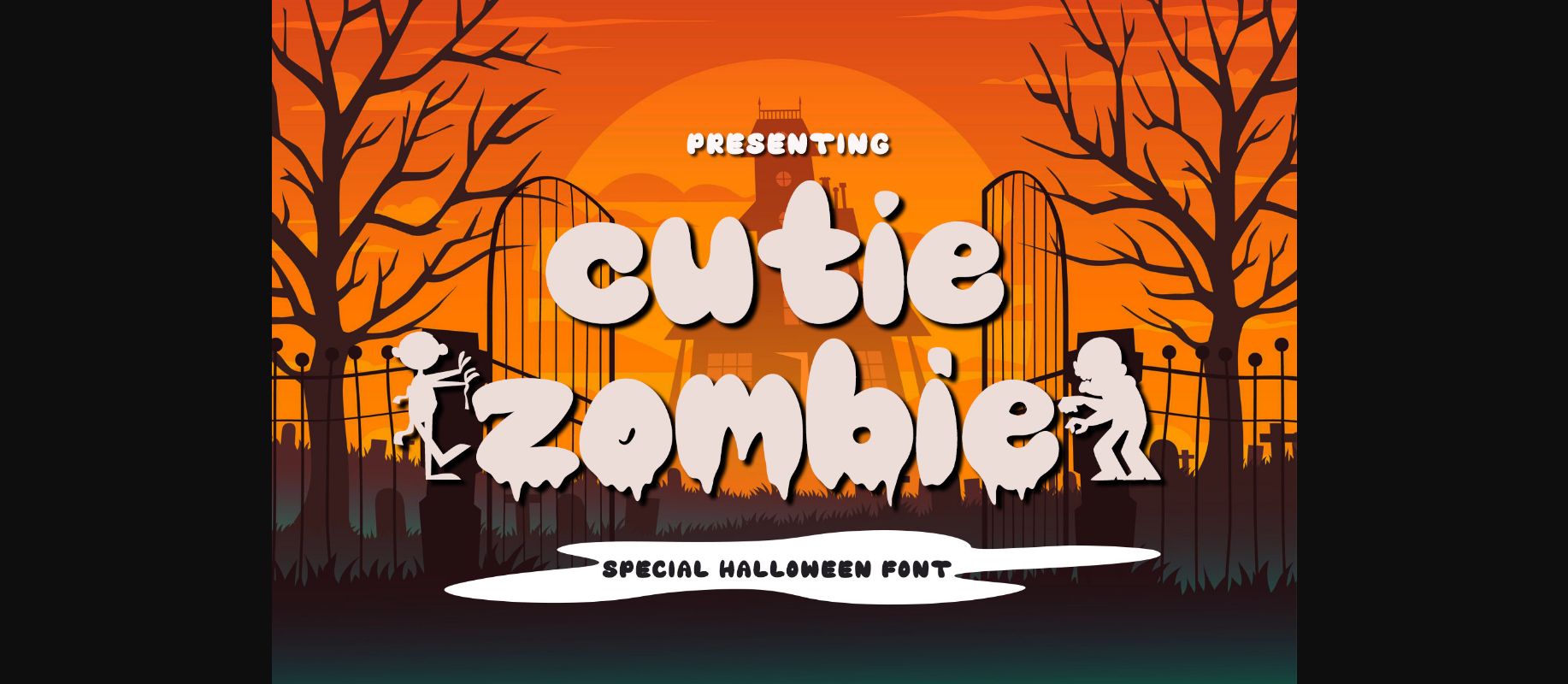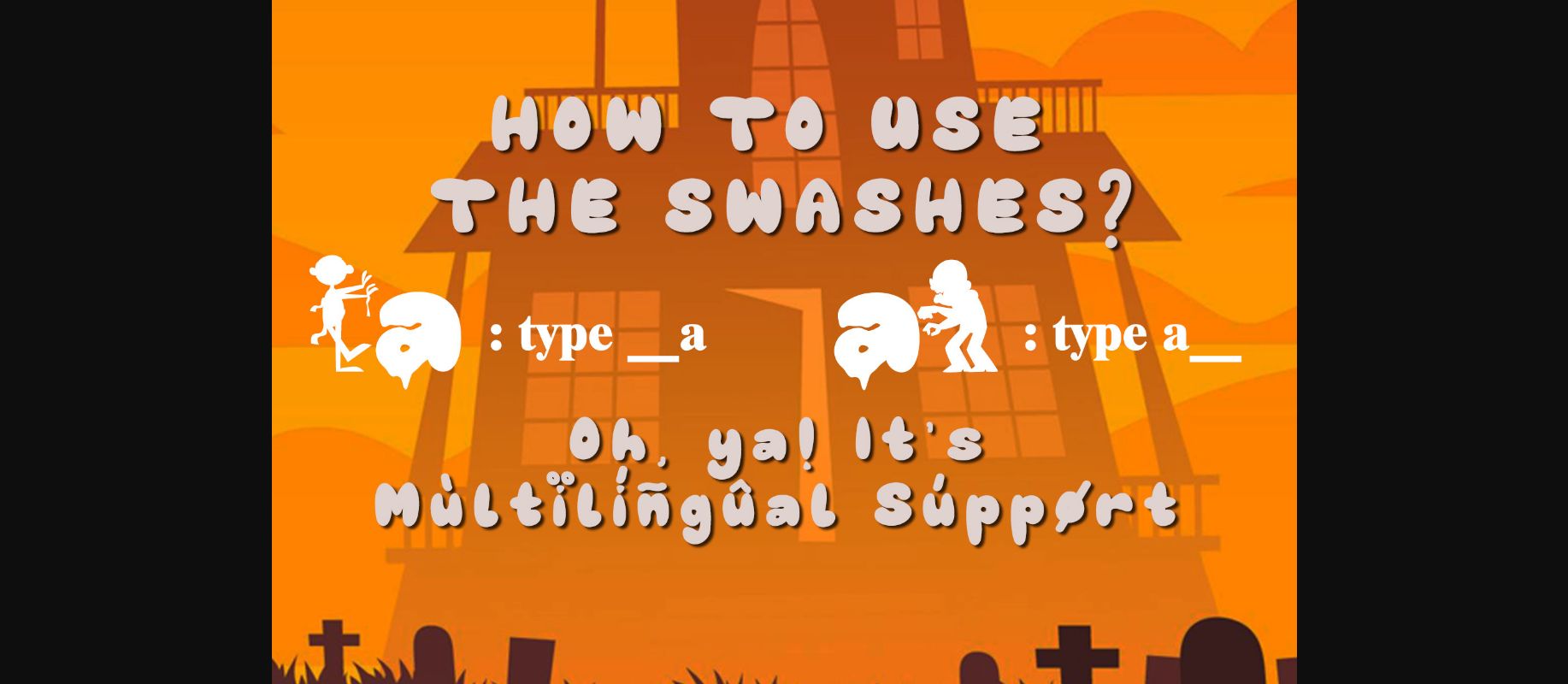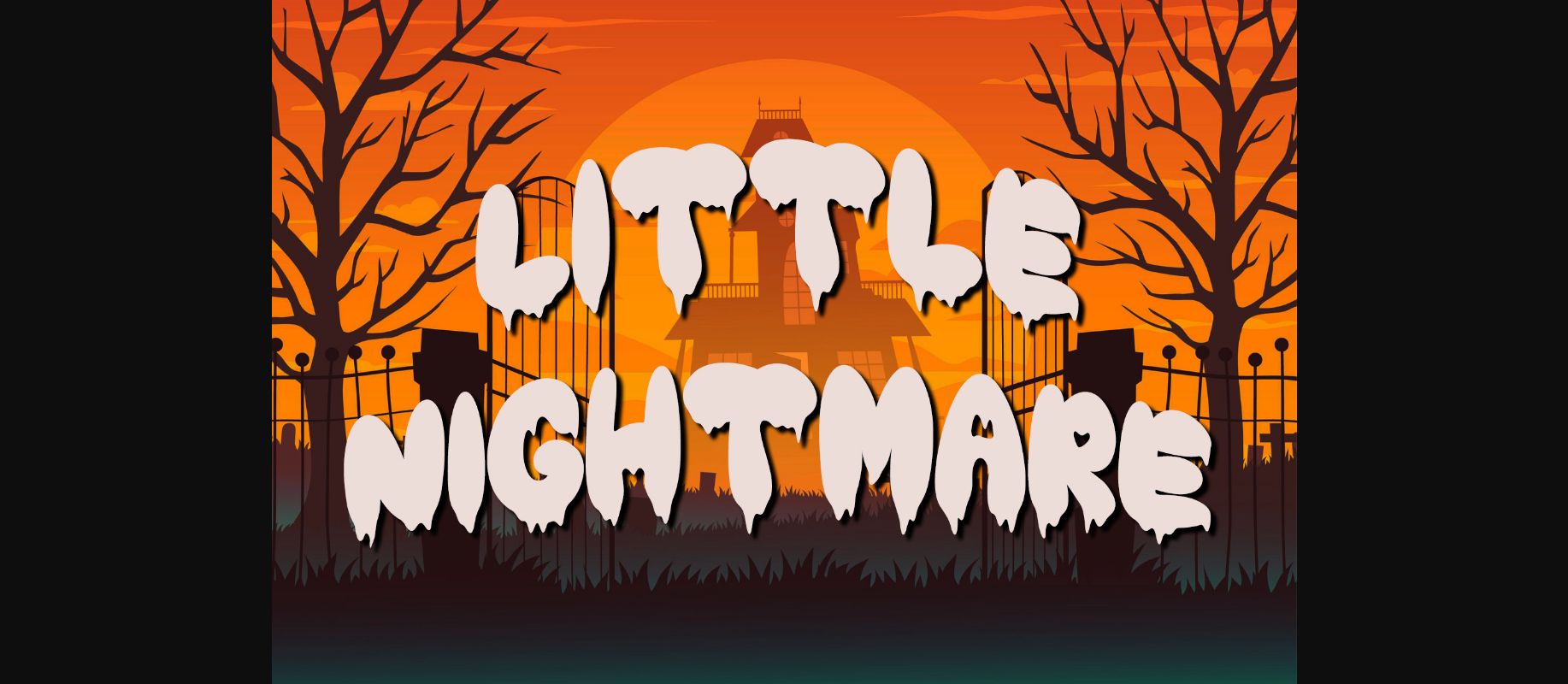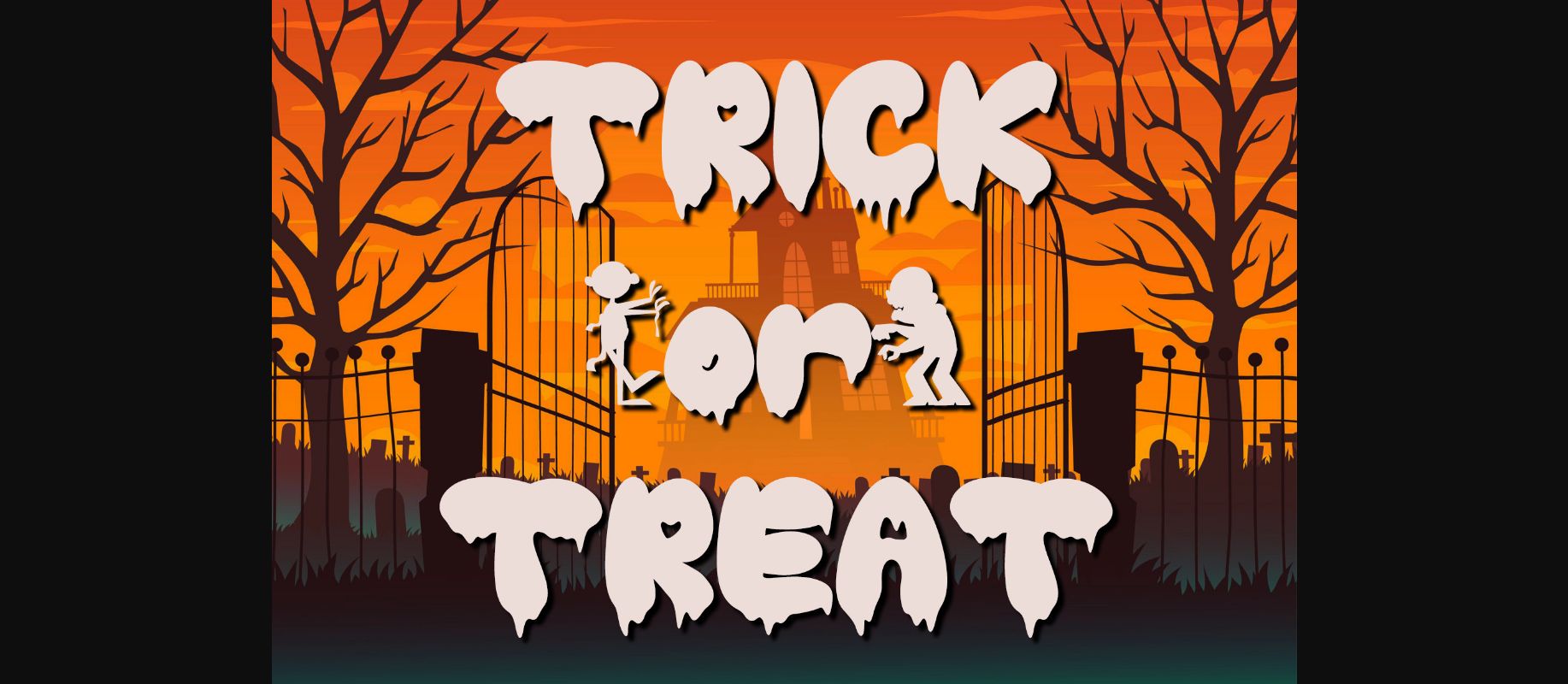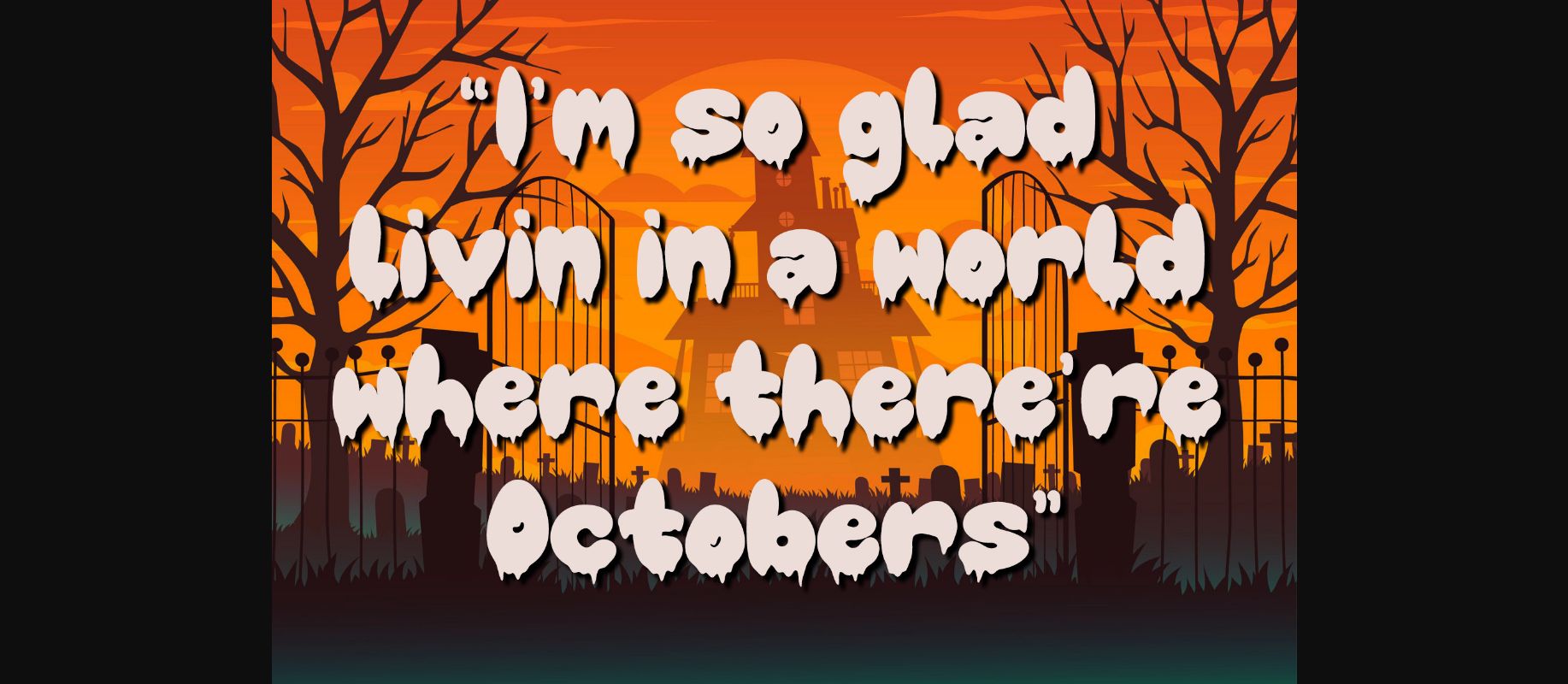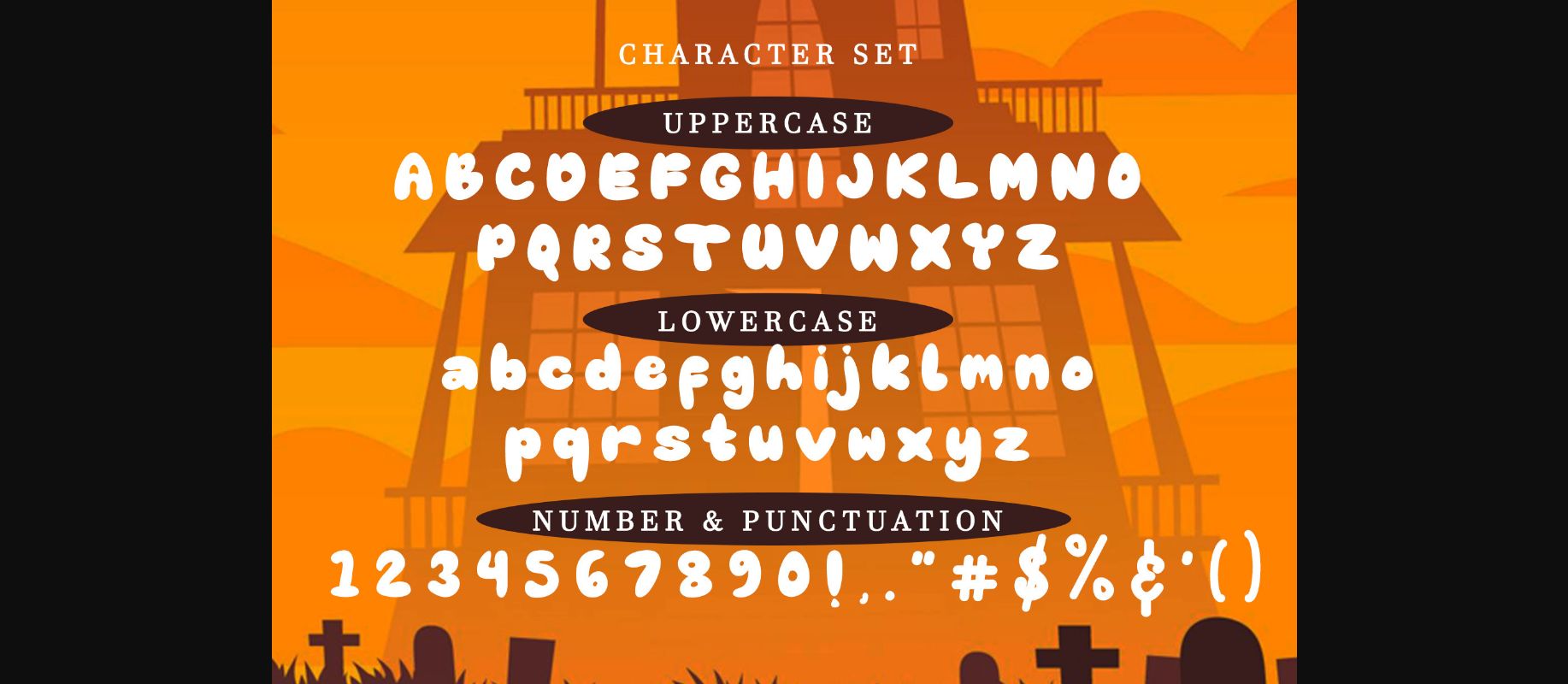
Cutie Zombie Font
About Cutie Zombie Font
Cutie Zombie is a thick-lettered and spooky decorative font. This font is PUA encoded which means you can access all of the glyphs and swashes with ease!